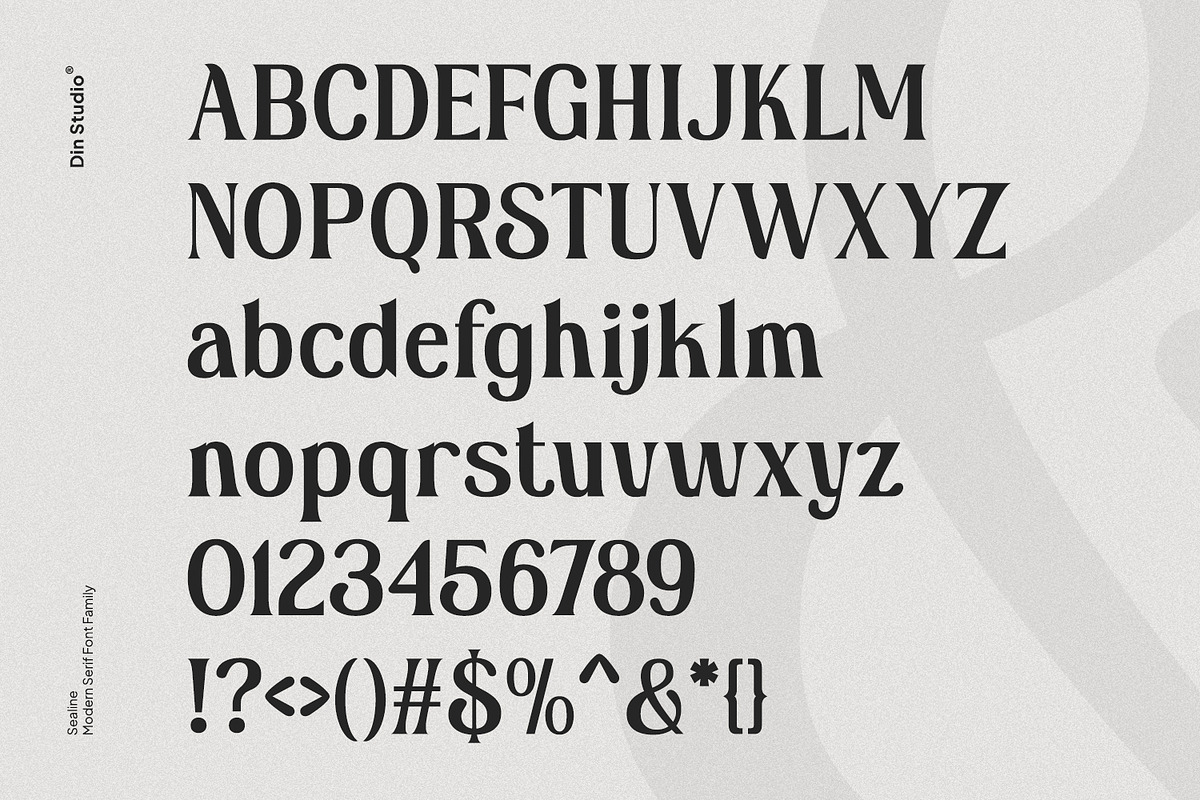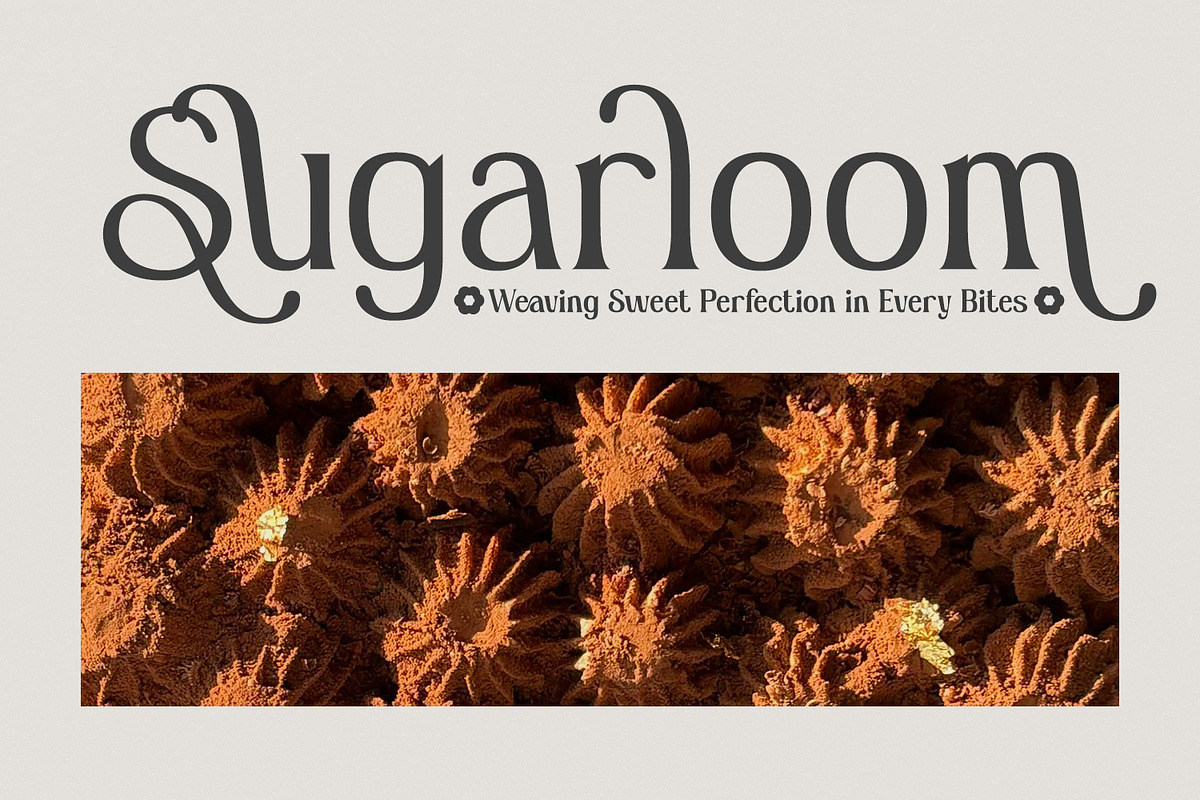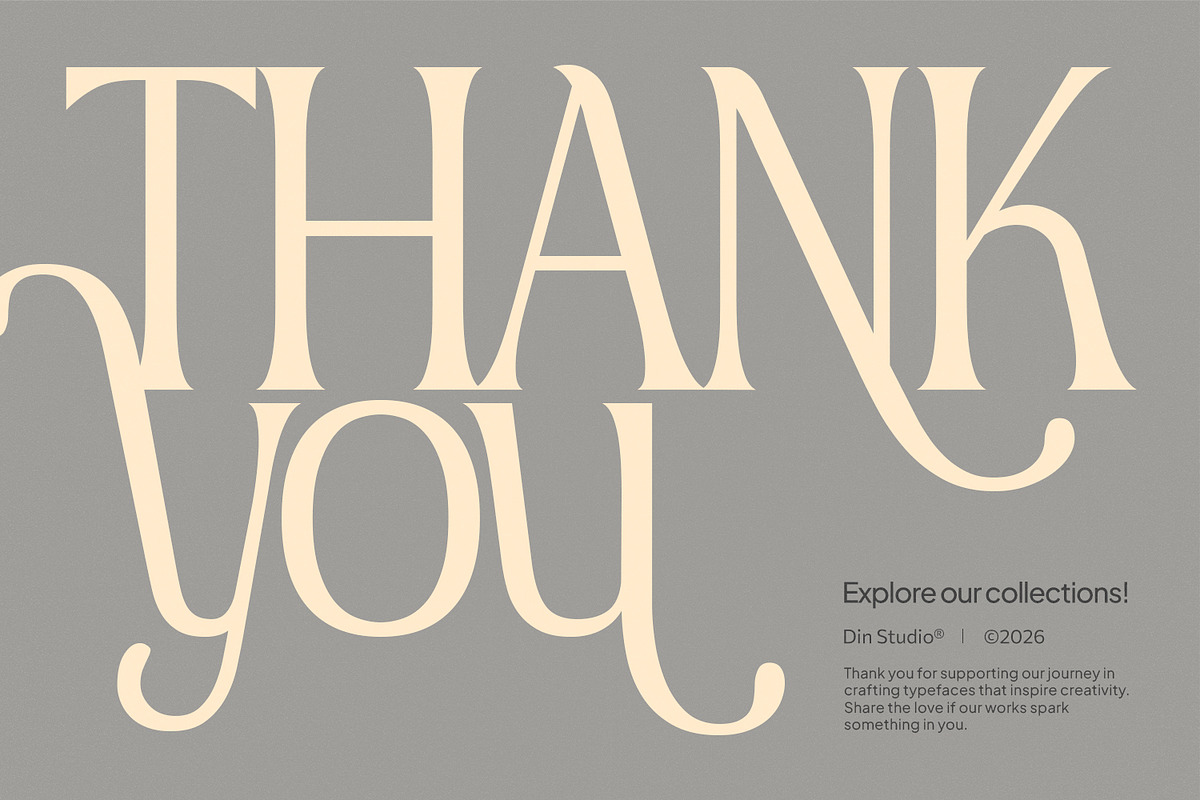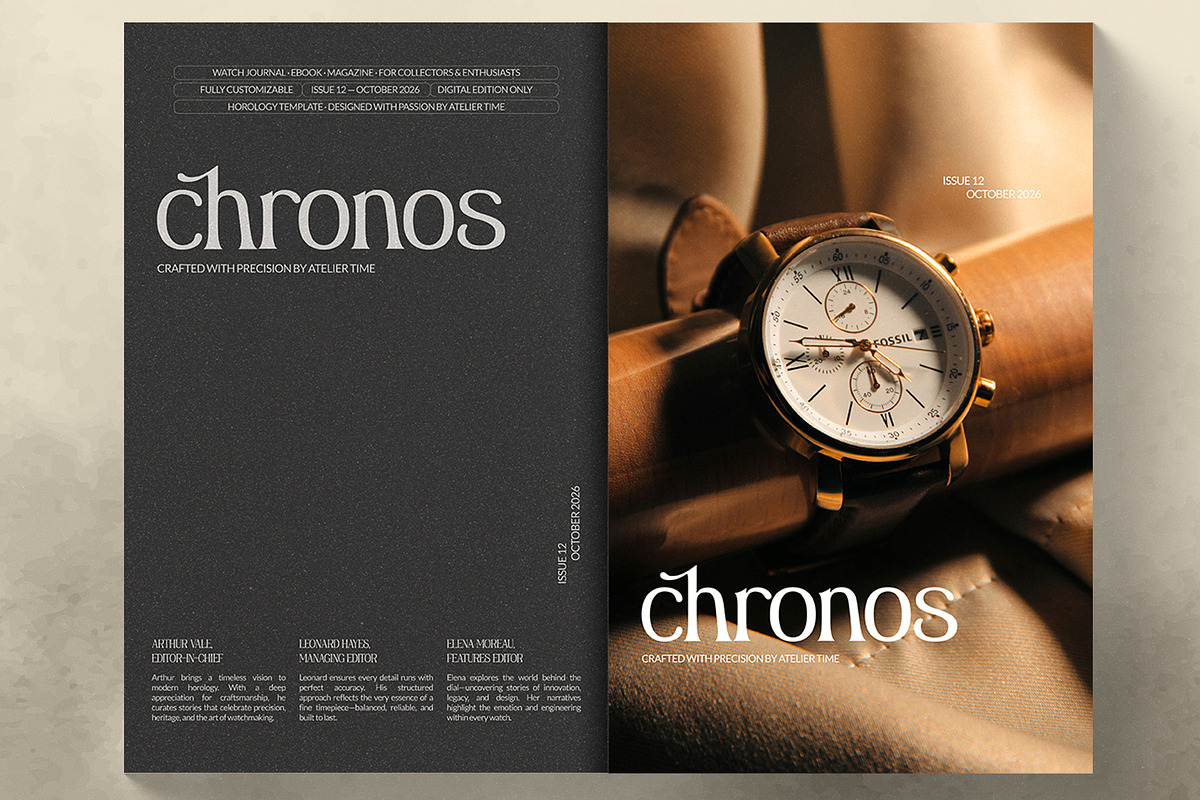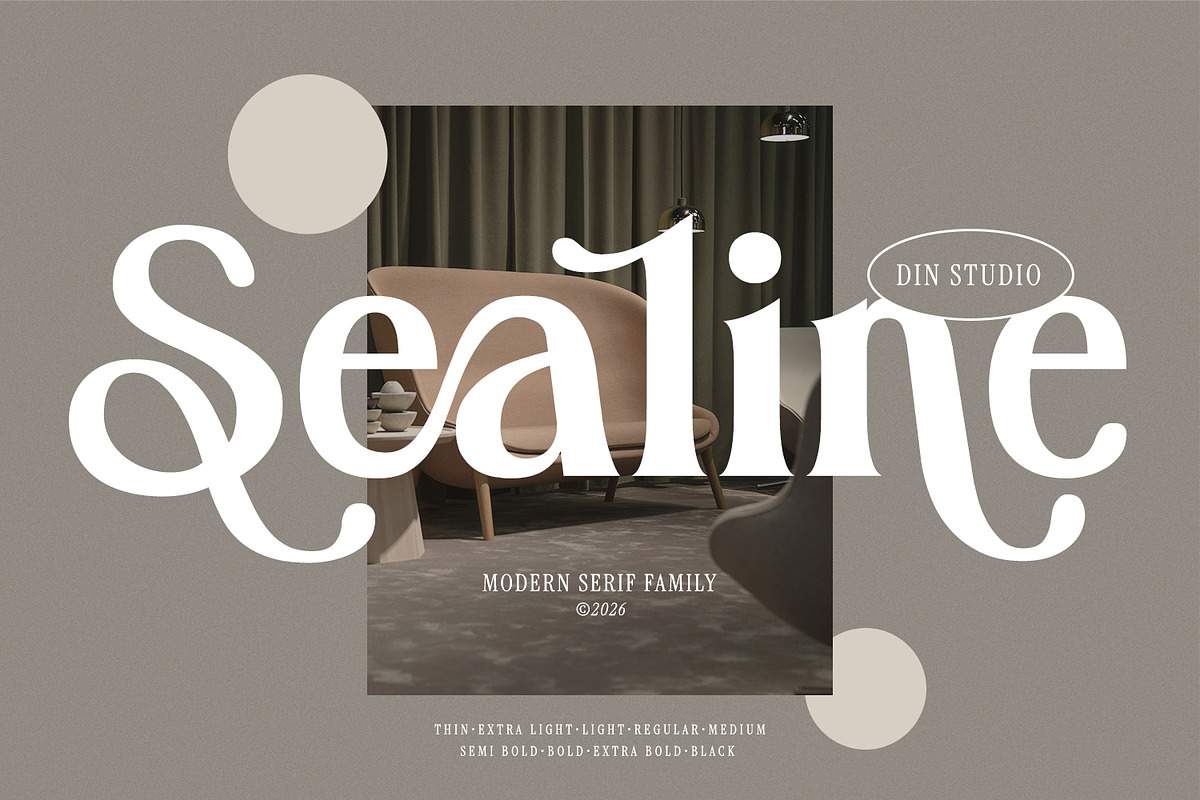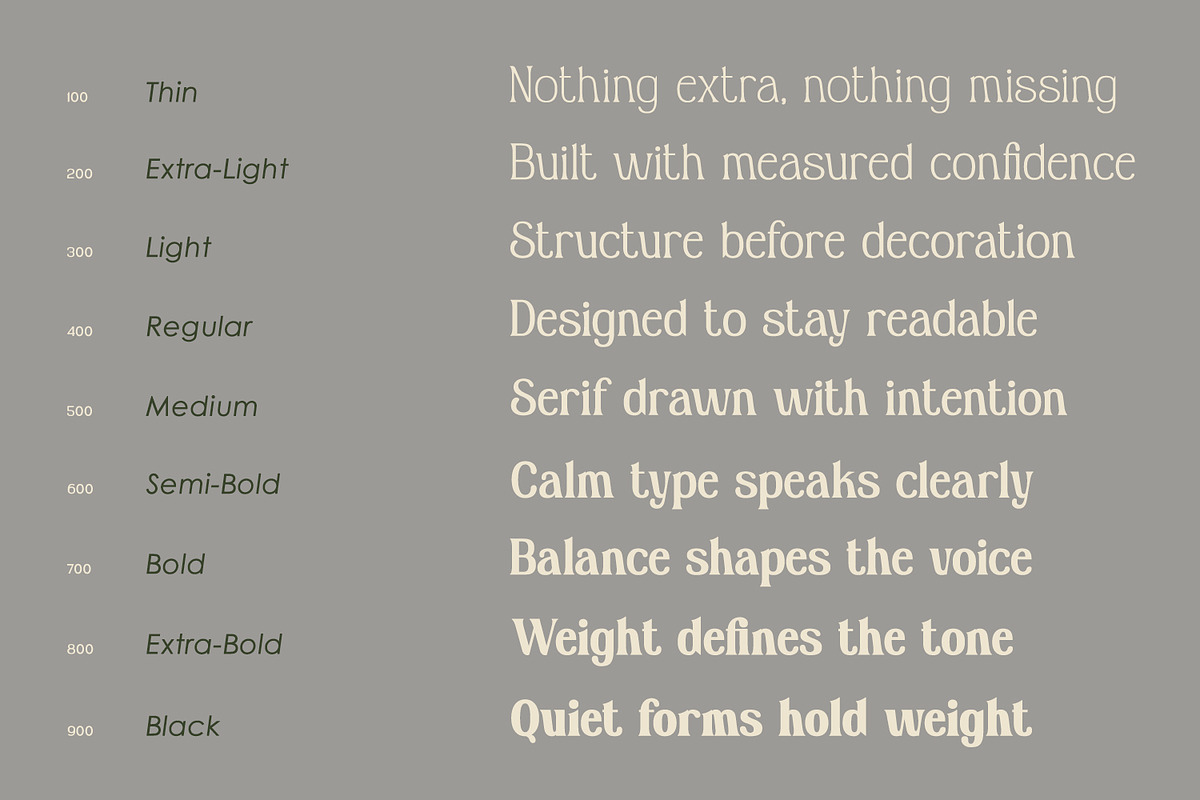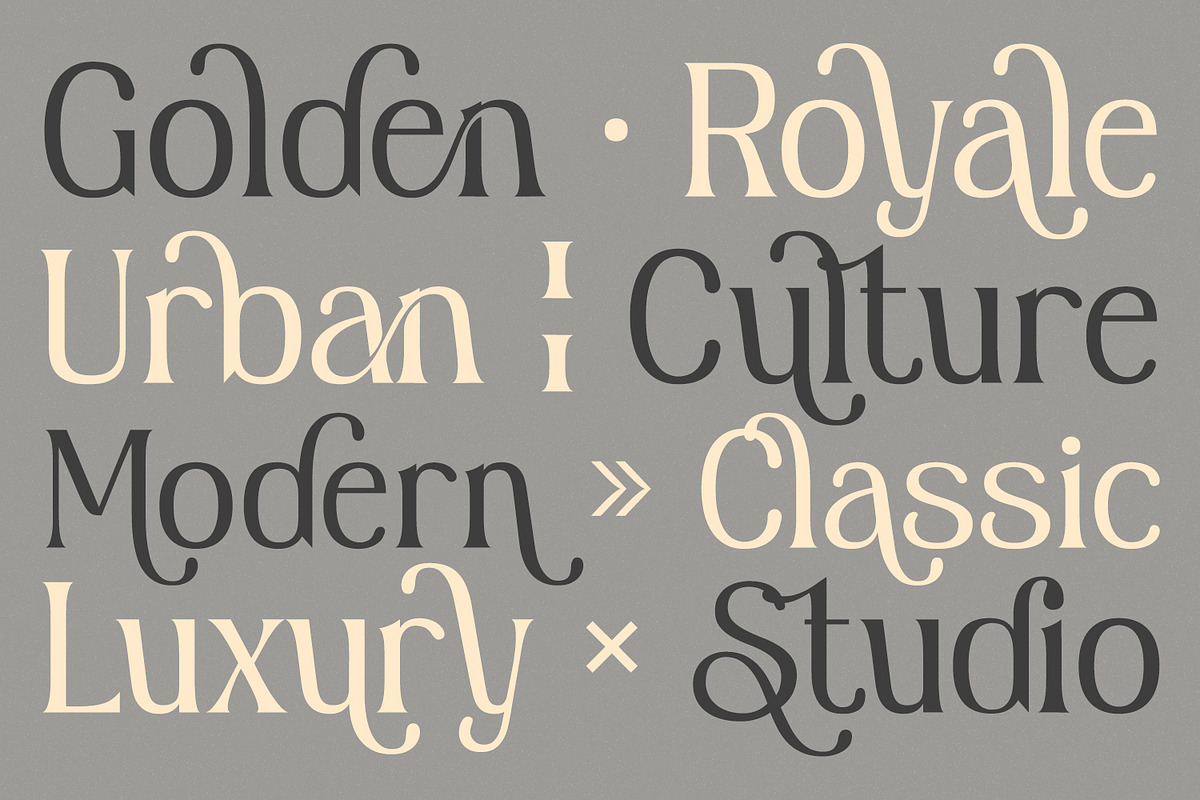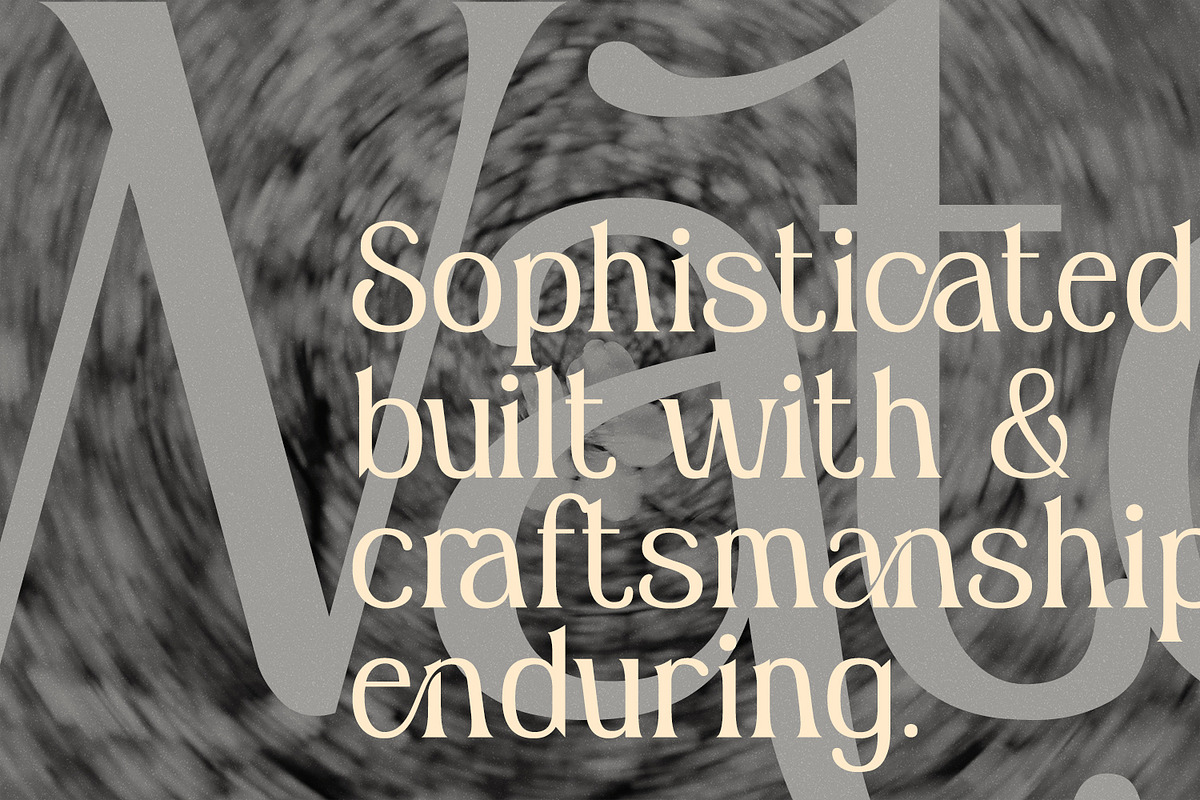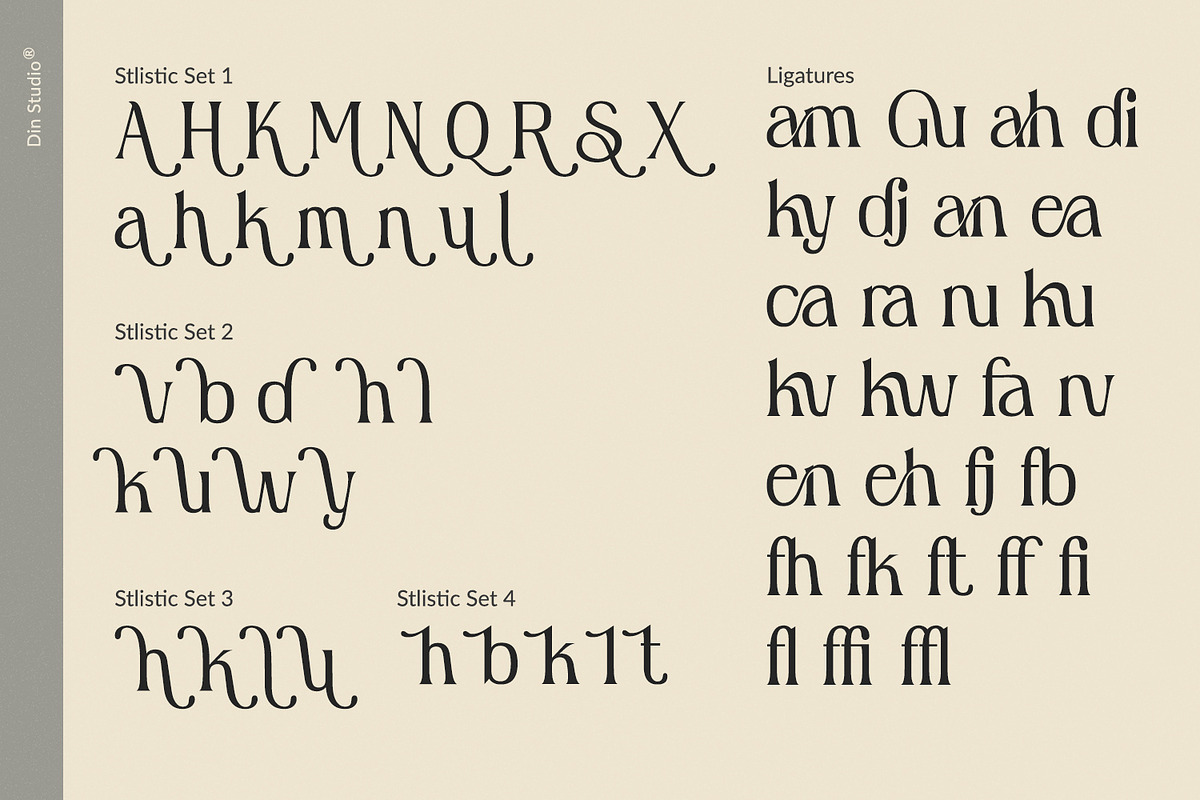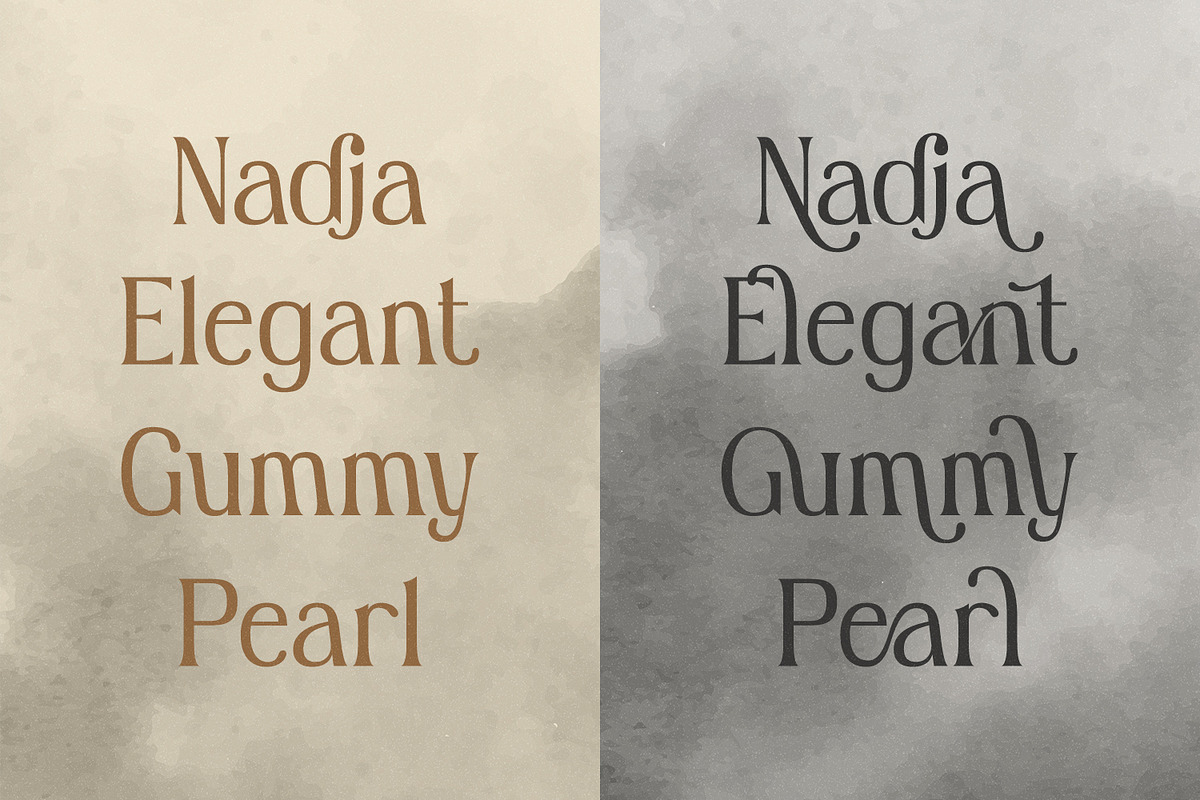
Sealine
Sealine is a modern serif font family that seamlessly blends contemporary sophistication with timeless typographic elegance. With its clean serif structure, balanced proportions, and modern character, Sealine is crafted to help designers create visually stunning and highly readable typography. One of the defining strengths of the Sealine font family is its comprehensive collection of 9 different weights. From Thin and Extra Light to Bold and Black, providing exceptional flexibility for creating strong visual hierarchies and cohesive brand identities. In addition, enjoy the features here.
Stylistic Sets
Multilingual Supports
Numerals and Punctuations
Sealine fits in logos, quotes, name cards, branding, posters, and many more designs. Find out more ways to use this font by taking a look at the font preview.